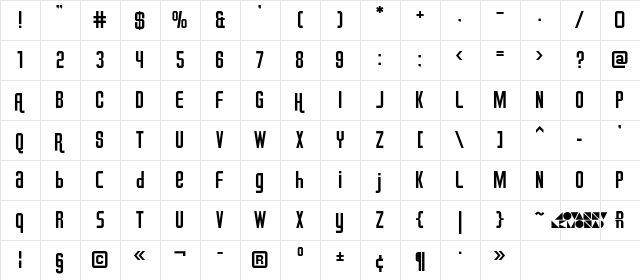
Airport Regular
| Designer | Stefan Vanli & Jovanny Lemonad |
Design Context for Airport Typeface
Airport offers clean, dependable letterforms without strong stylistic allegiance, making it a practical choice for designers who need flexibility.